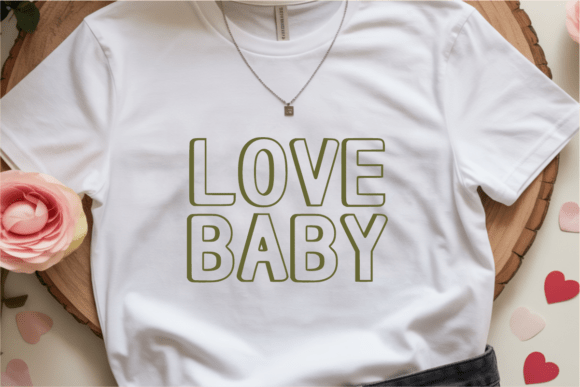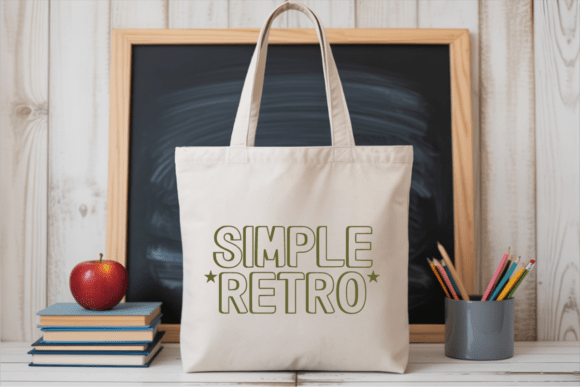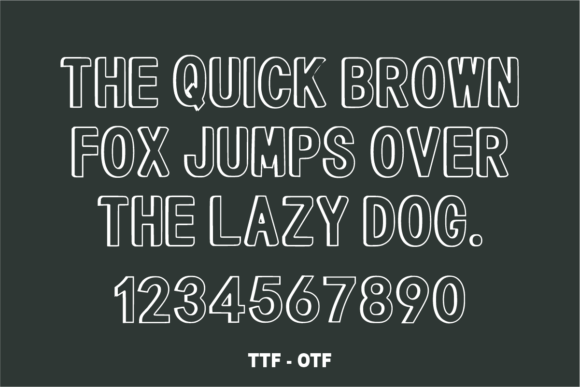
Introduction to Outline Winter Font
As a designer, there’s nothing quite like the thrill of bringing a creative project to life. Whether you’re working on a seasonal campaign or a personal passion project, the right font can make all the difference. I still remember the moment I stumbled upon the Outline Winter Font – it was like a breath of fresh air for my design workflow. The combination of a light, airy feel and bold presence is a game-changer, especially when you need to add a touch of sophistication to your designs.
One of the things that sets the Outline Winter Font apart is its unique design. With thick, clean outlines that allow your background textures or colors to show through the center of the letters, this font is perfect for creating a high-quality, professional look. Whether you’re looking to layer it over photography or use it in “hollow” neon-style signs, the Outline Winter Font is an excellent choice. And with its solid counterpart, the Modern Winter font, you can create a sophisticated “filled and hollow” typographic hierarchy in your layouts.
As a valuable design resource, the Outline Winter Font is a must-have for any designer looking to elevate their creative projects. With its transparent background and versatile design, it’s the perfect choice for a wide range of applications – from web design to print materials. And the best part? You can download it for free, making it an accessible resource for designers of all levels.
Key Features of Outline Winter Font
- High-quality design resource with a transparent background, ideal for creative projects
- Outline Winter Font features a unique, minimalist design with clean lines and subtle details, perfect for modern and winter-themed projects
- Supports a wide range of languages, ensuring versatility and accessibility
- Comes in a single weight, making it easy to use and customize in various creative projects
Honest Review: Outline Winter Font
I recently had the chance to try out the Outline Winter Font, and I must say it’s a solid addition to any design resource collection. The first thing that caught my eye was the crisp, high-quality design that makes it perfect for any creative project.
- The font’s transparent background makes it super easy to layer and customize, which is a huge plus for me.
- The clean lines and minimalist design give it a timeless feel that works well for both modern and traditional projects.
- The font only comes in one weight, which may limit its use in certain situations where multiple weights are needed.
- The design, while clean, may not be suitable for projects that require a lot of text or complex layouts.
Overall, I’m impressed with the Outline Winter Font, and I think it’s a great addition to any designer’s toolkit. With its high-quality design and flexible use cases, it’s definitely worth checking out – especially if you’re looking for a solid, free download option.
The Outline Winter Font is commonly used in winter-themed projects, such as holiday cards, gift tags, and social media graphics. Its high-quality design and transparent background make it a great choice for creative projects.
To get the most out of the Outline Winter Font, use it in conjunction with other design elements, such as snowflakes, pinecones, or holly. You can also experiment with different font sizes and colors to create a unique look.